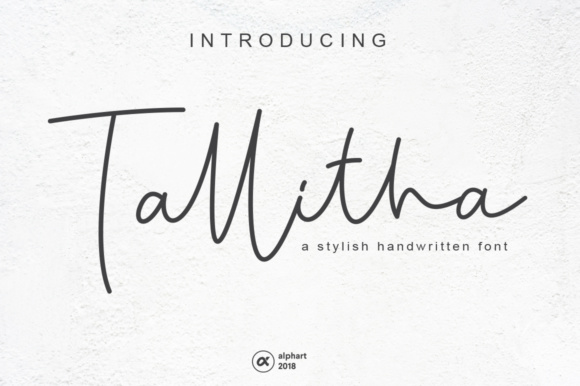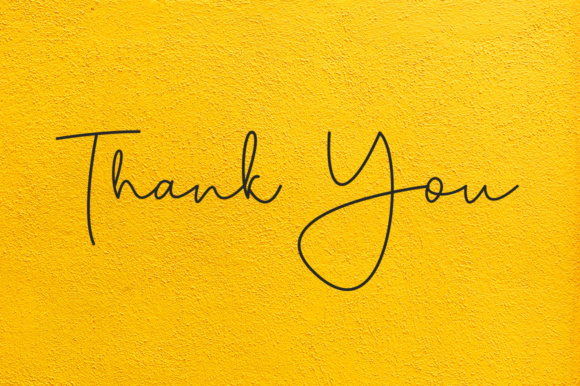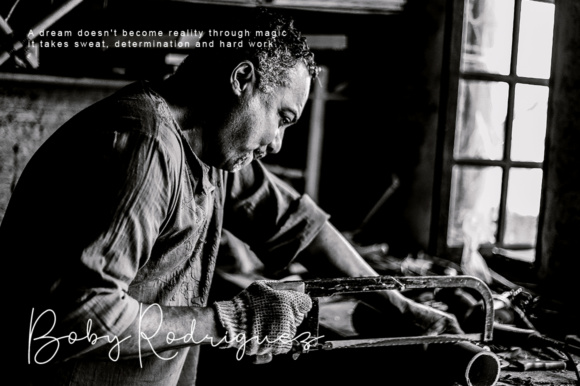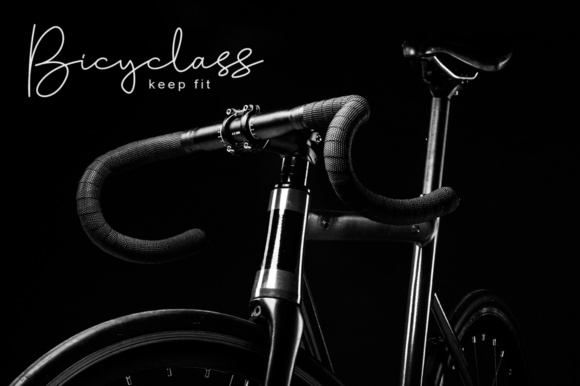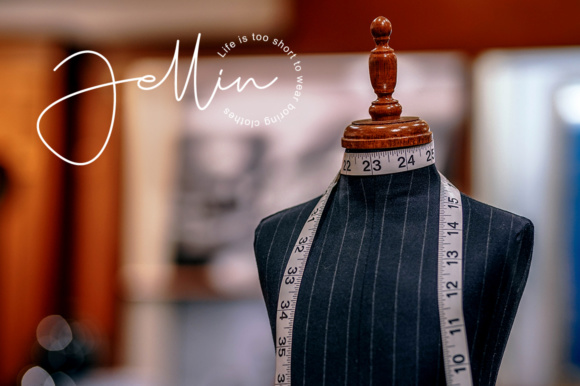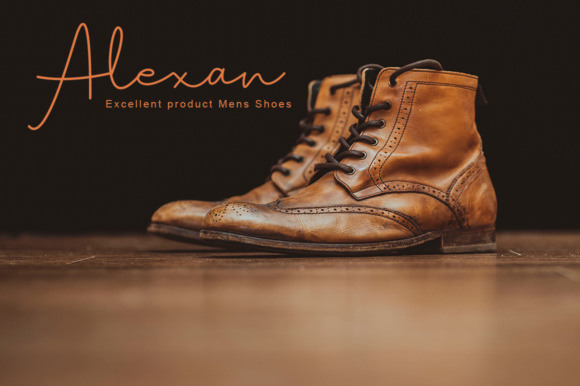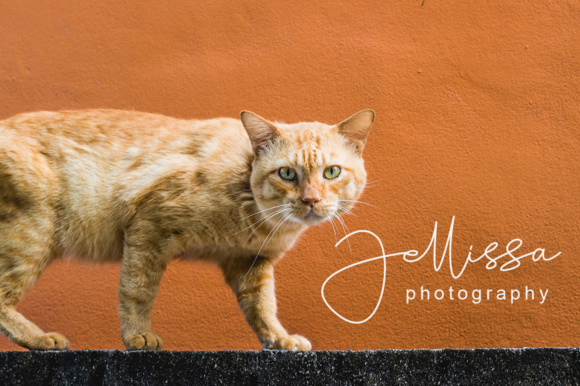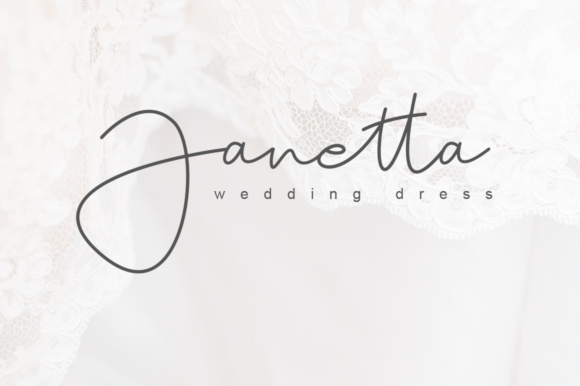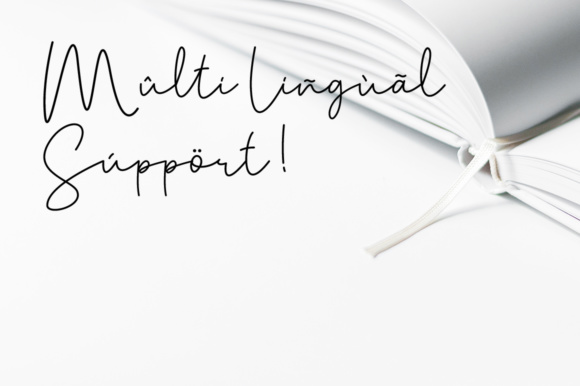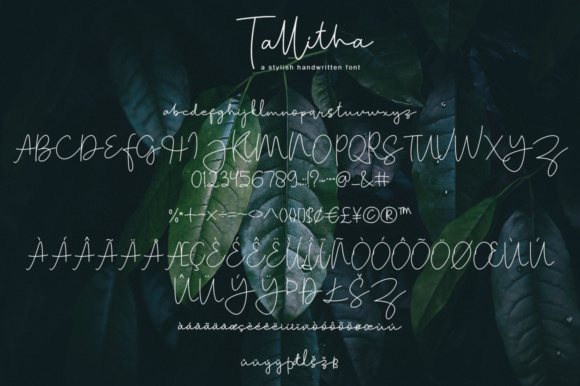
Tallitha Font
About Tallitha Font
The Tallitha is a stylish handwritten font. Its modern style and elegant swashes make it look natural and stylish. Perfect for any design that needs a handwriting look.